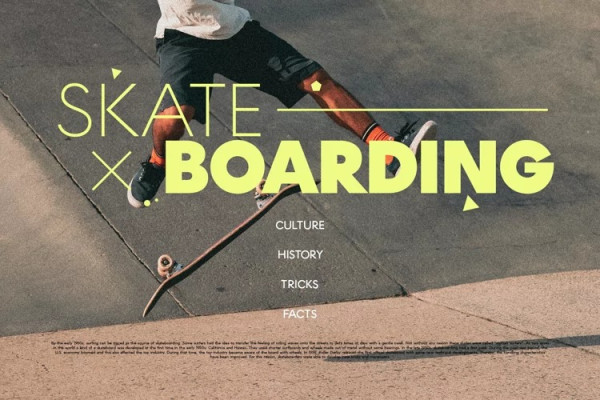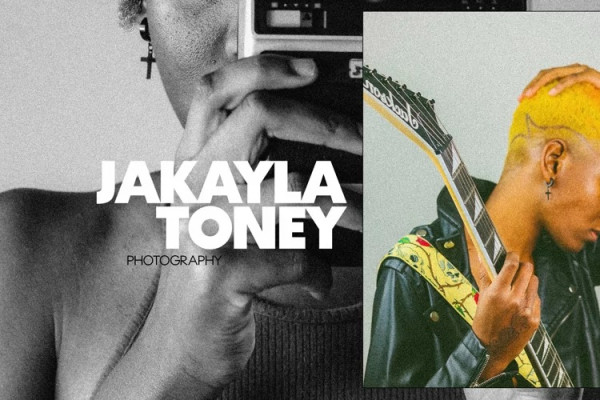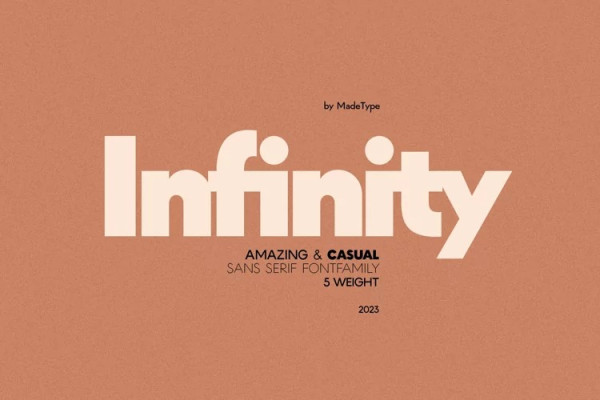
Made Infinity Font
Made Infinity Font, is a new casual classic sans serif typefamily. Its optimum legibility, clean, and geometric look is perfect branding, brochures, greeting cards, quotes, posters, stationary, design titles, blog headers, and much more.